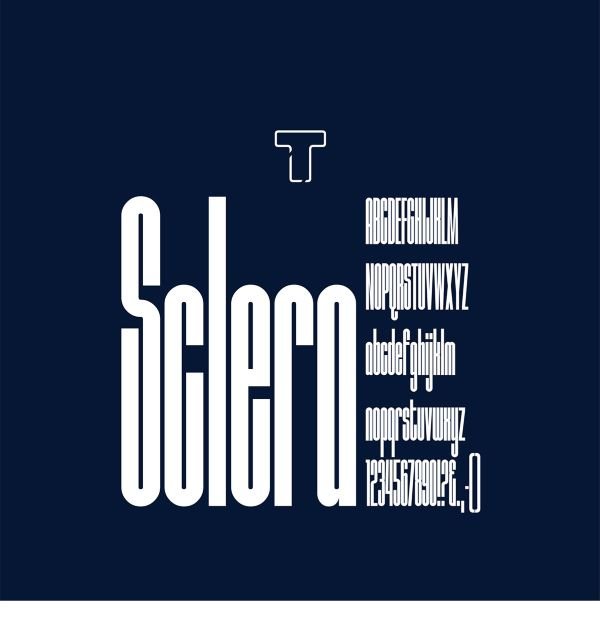
LT Sclera Font
LT Sclera Font by Daniel Lyons of LyonsType is a typeface built around a single bold design decision: push horizontal compression and stroke weight both to their absolute limits. The result is an ultra-condensed display face with a hairline variant that Lyons himself describes as the thinnest work in his type design career — a tall font stretched thin and held under a kind of quiet, formal tension.
The name references the sclera — the taut white outer layer of the eye — and that conceptual precision extends to the letterforms themselves. A limited character set for now, with extensions planned for future releases. Released under a standard commercial license from LyonsType.
Designer: Daniel Lyons (LyonsType)
Style: Display, Ultra-Condensed, Hairline, Multi-Weight